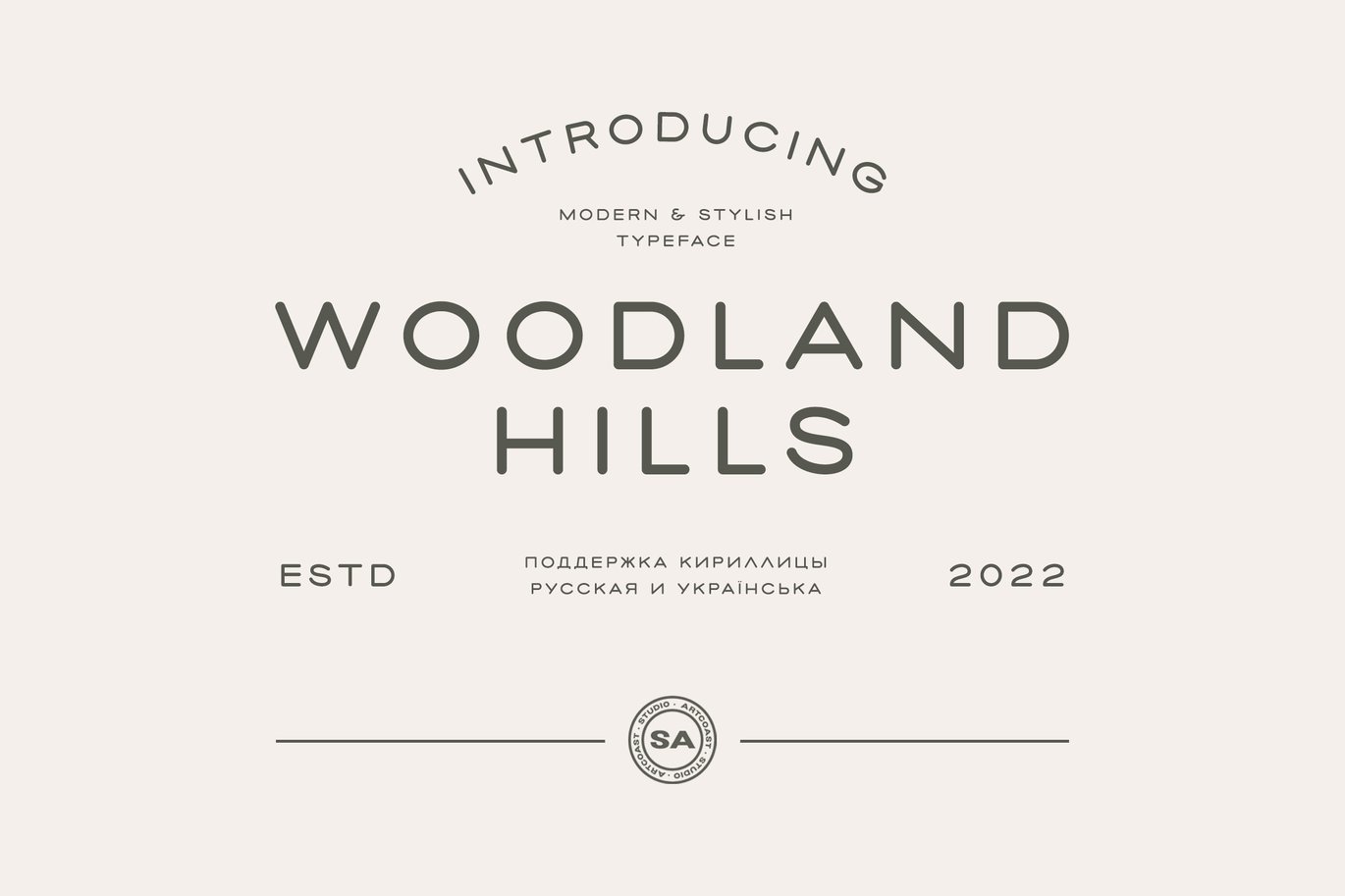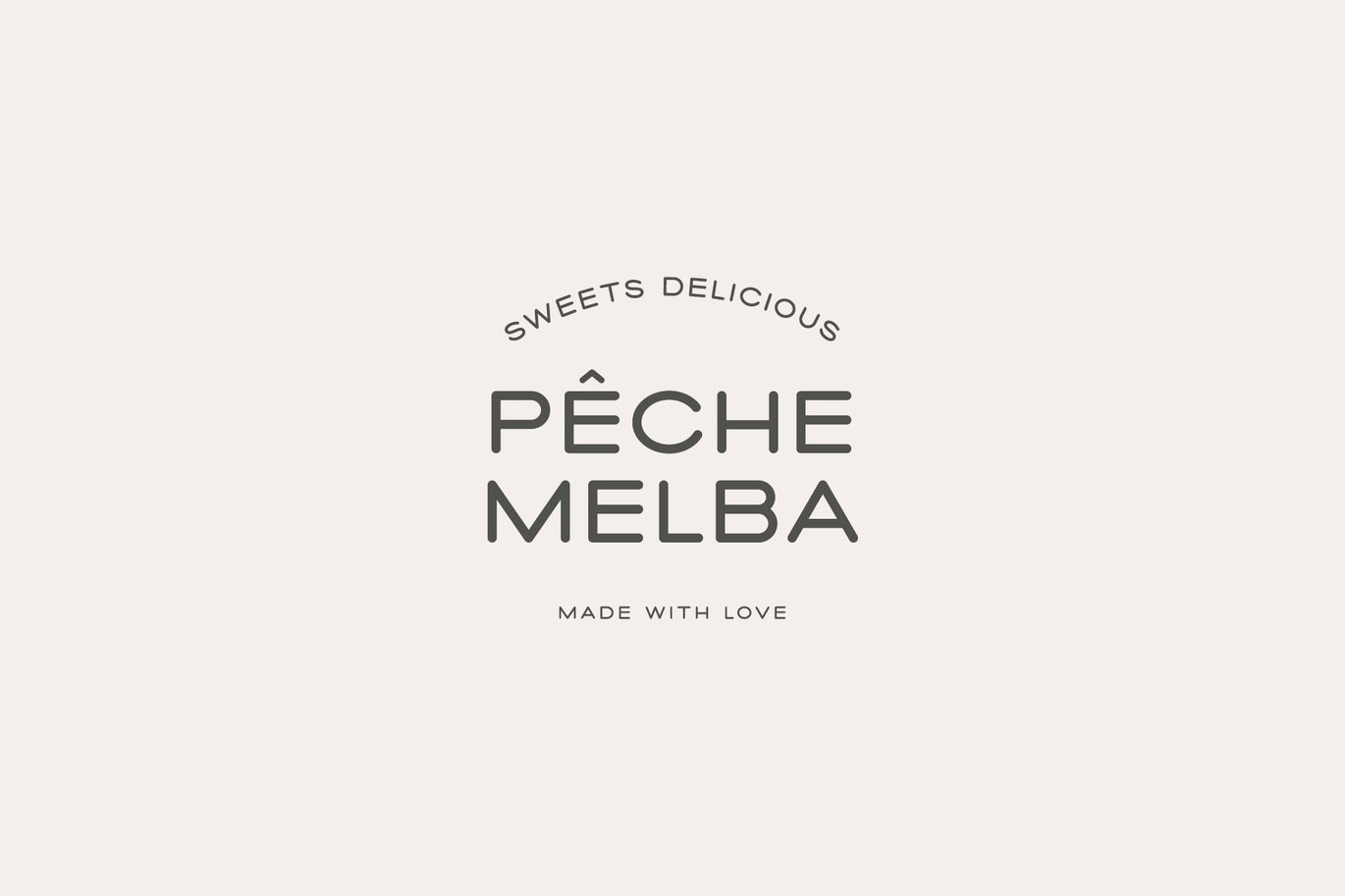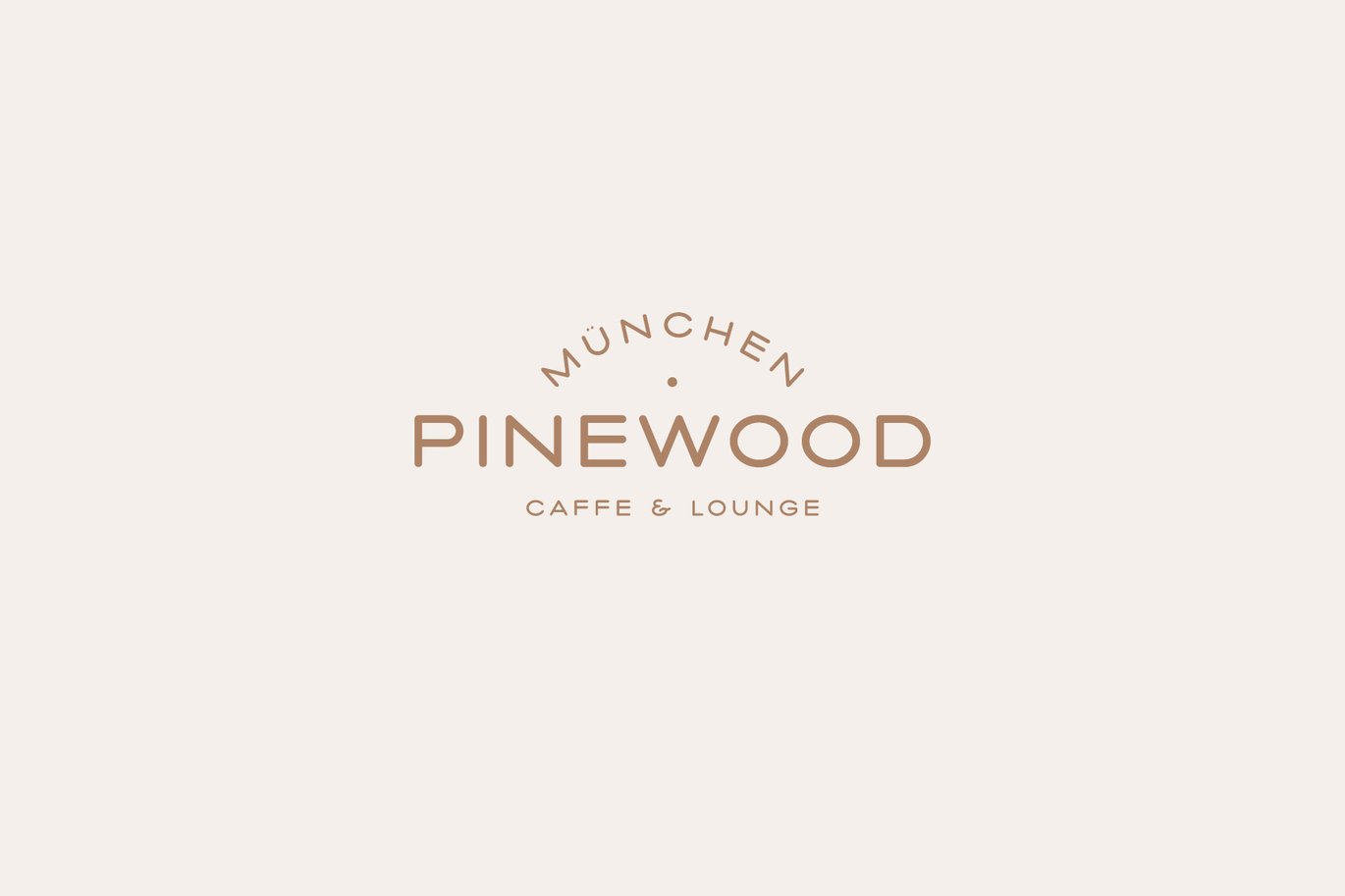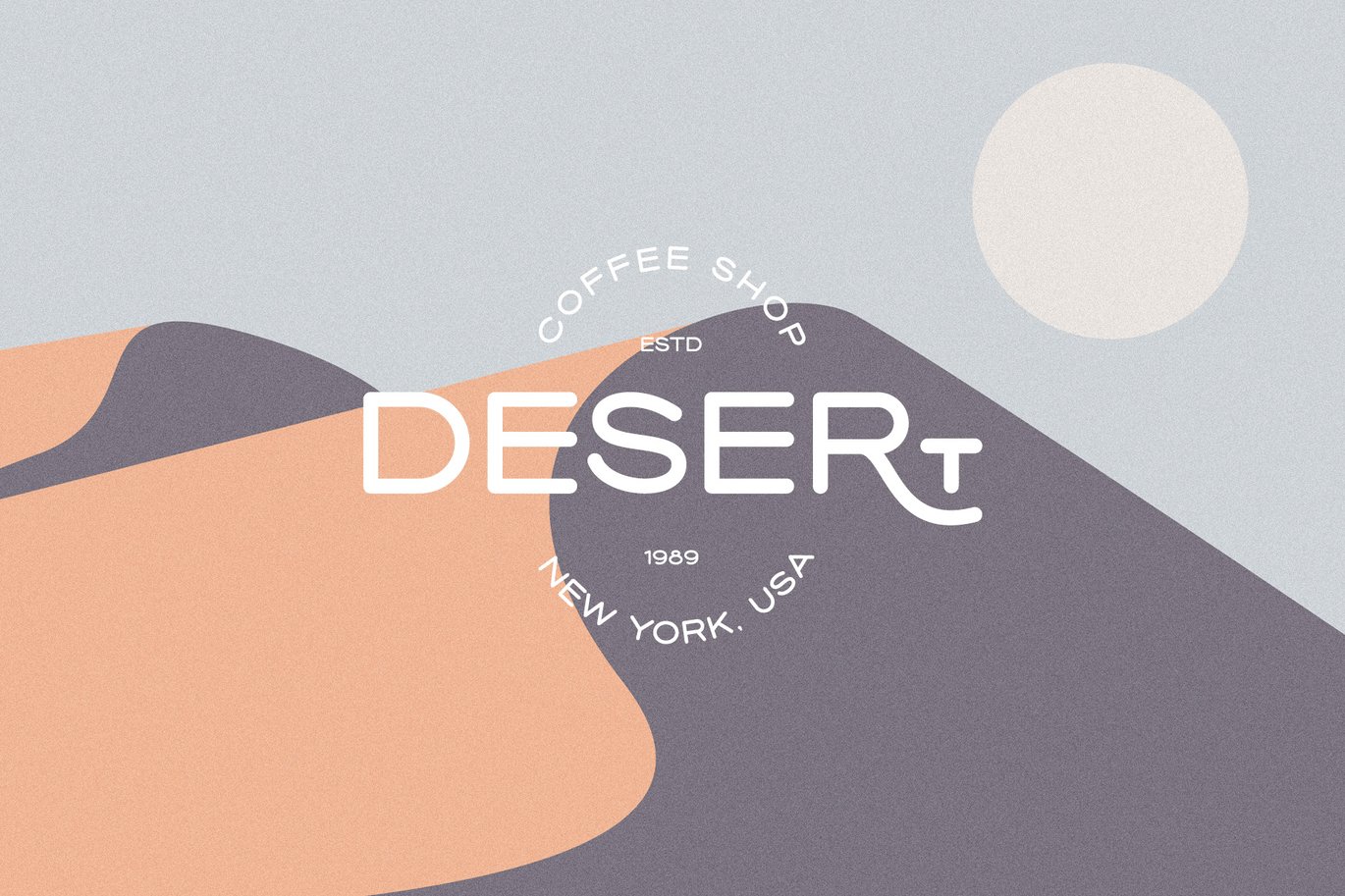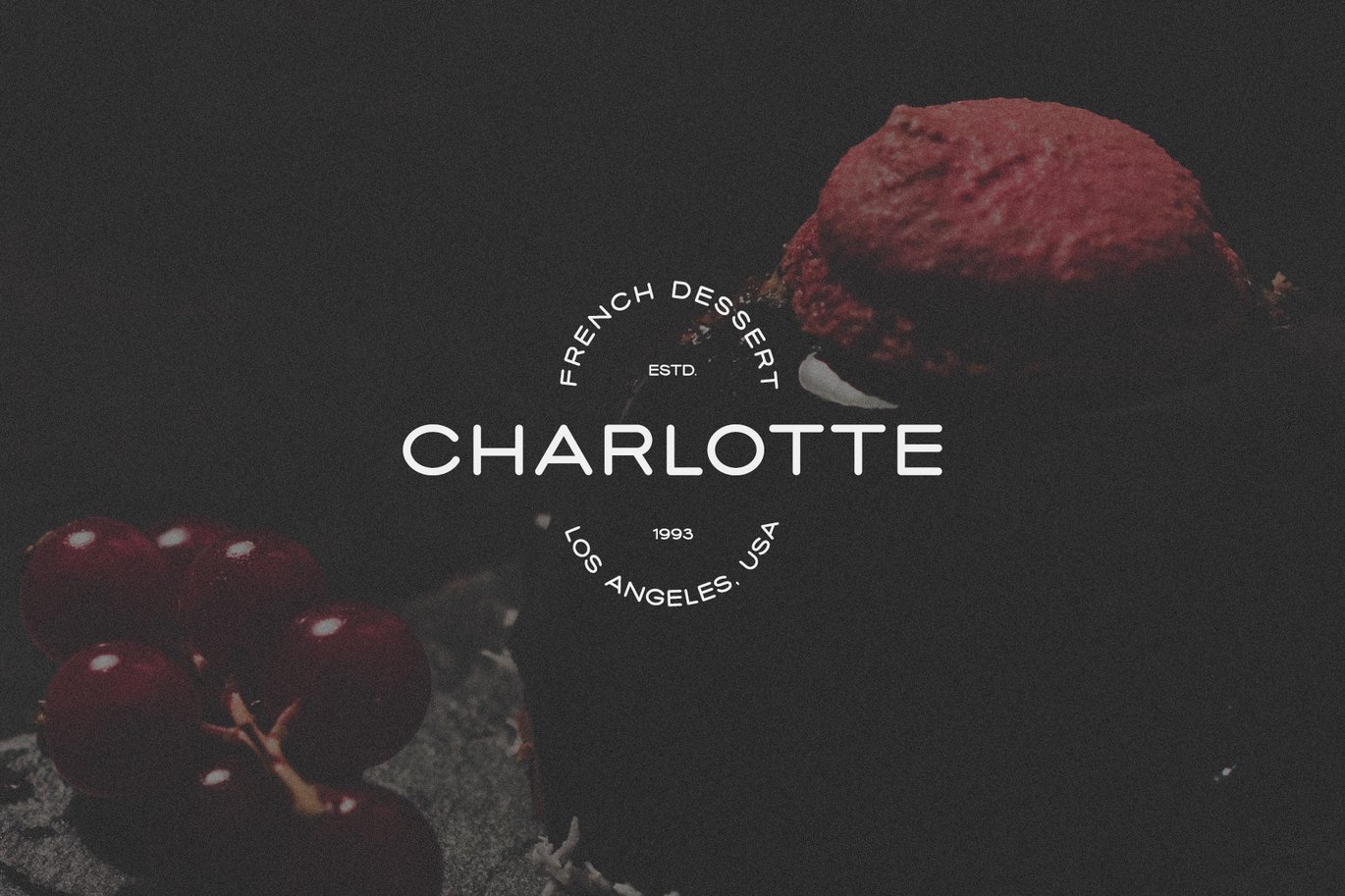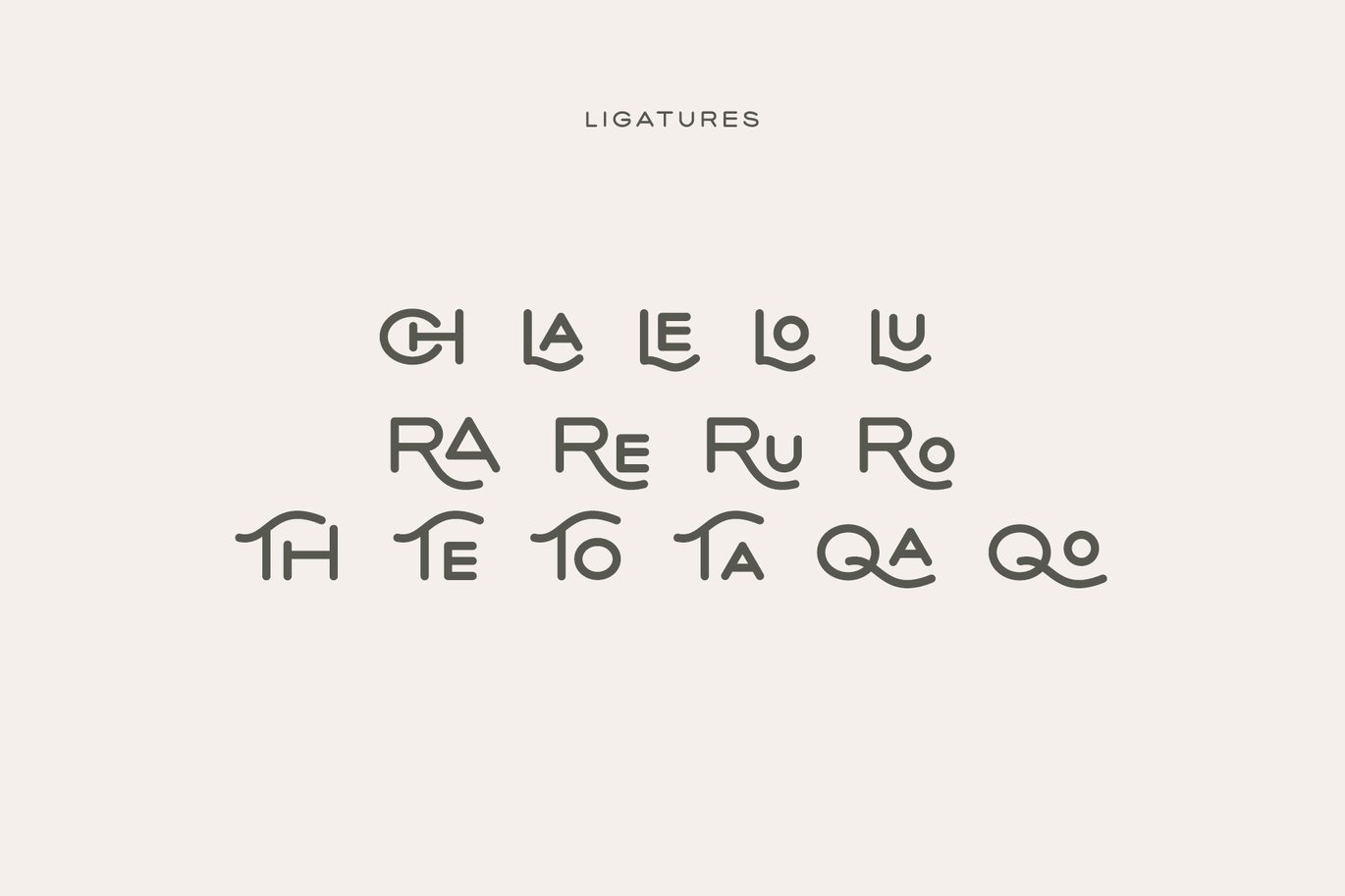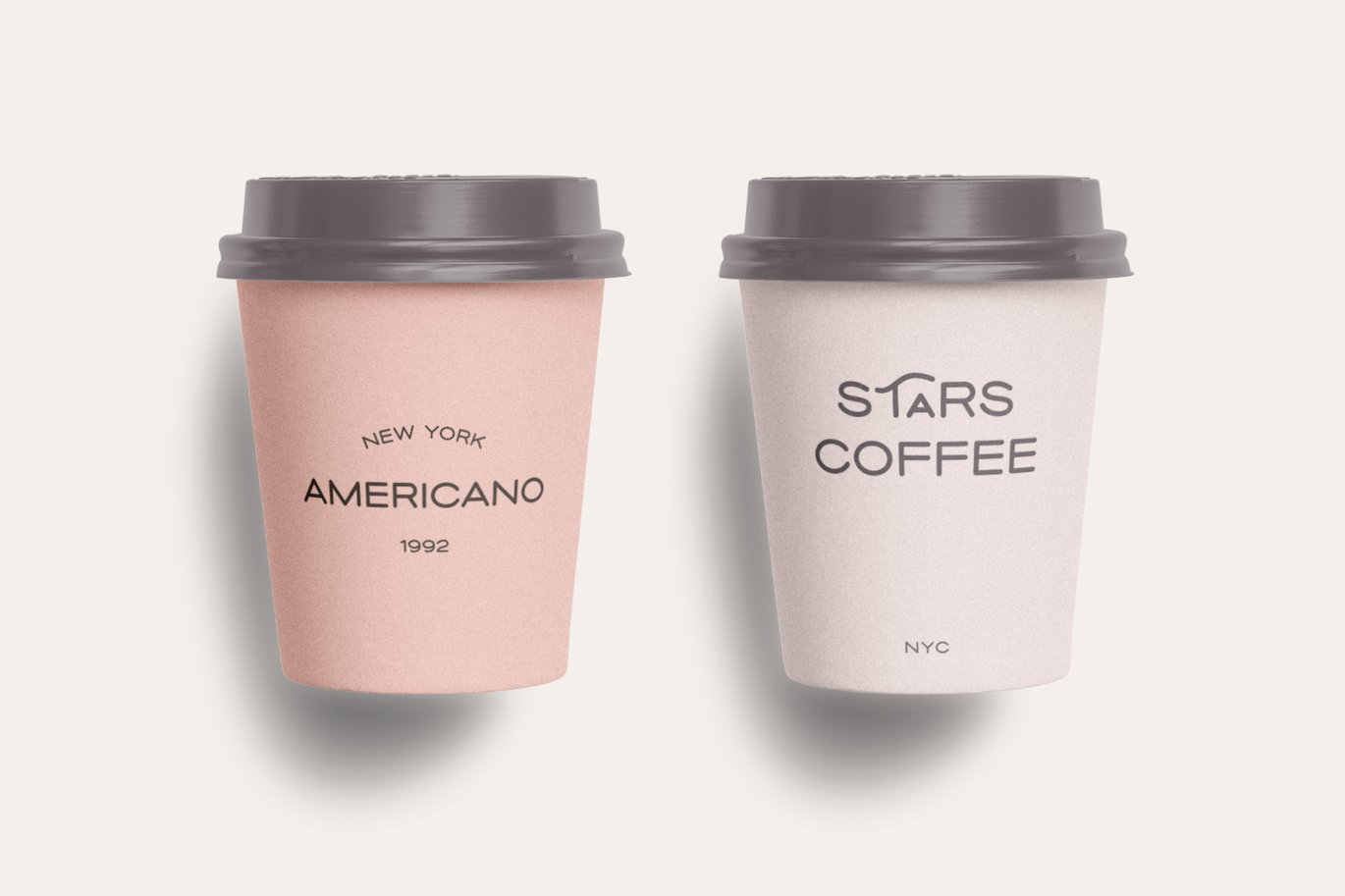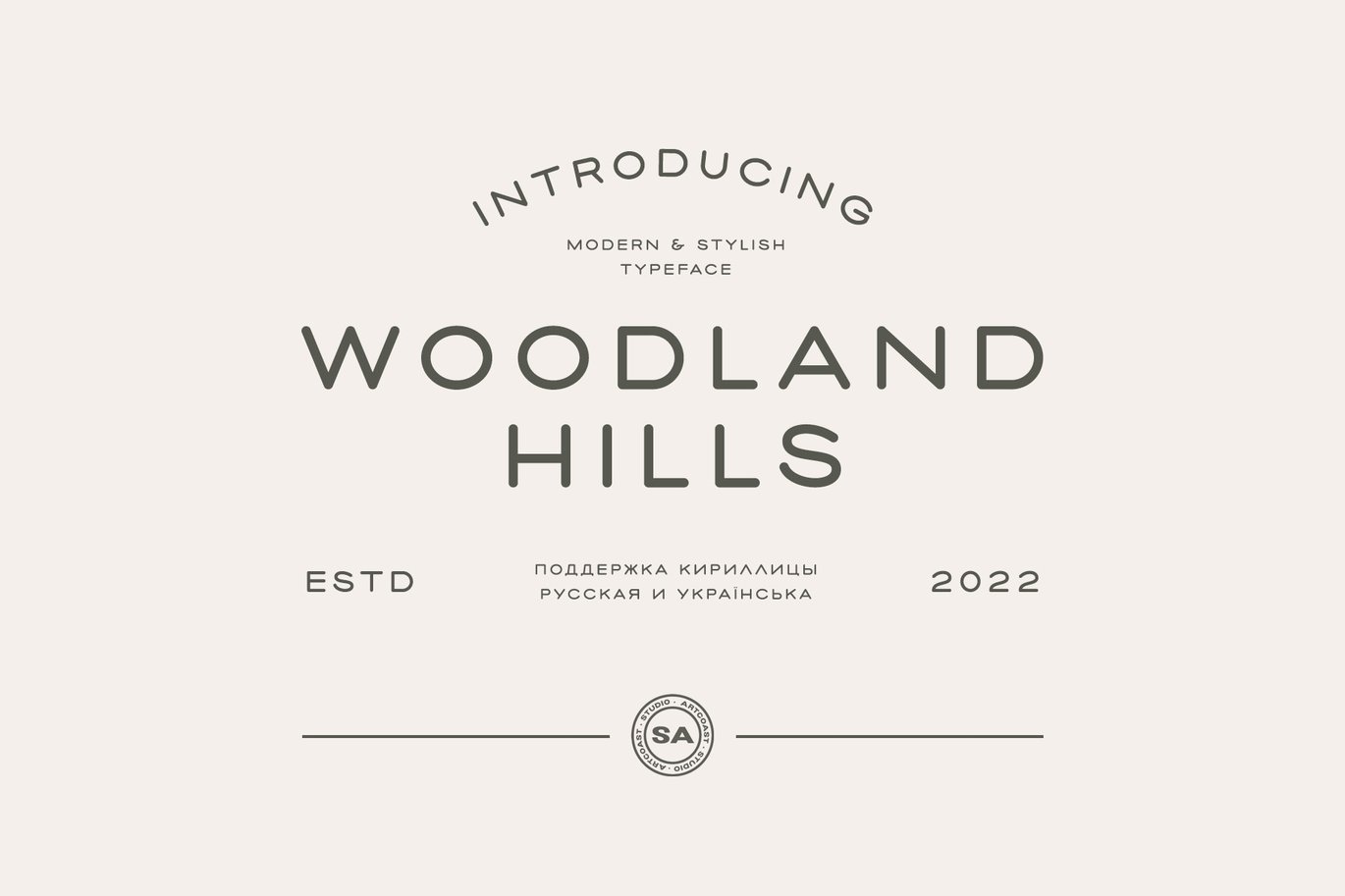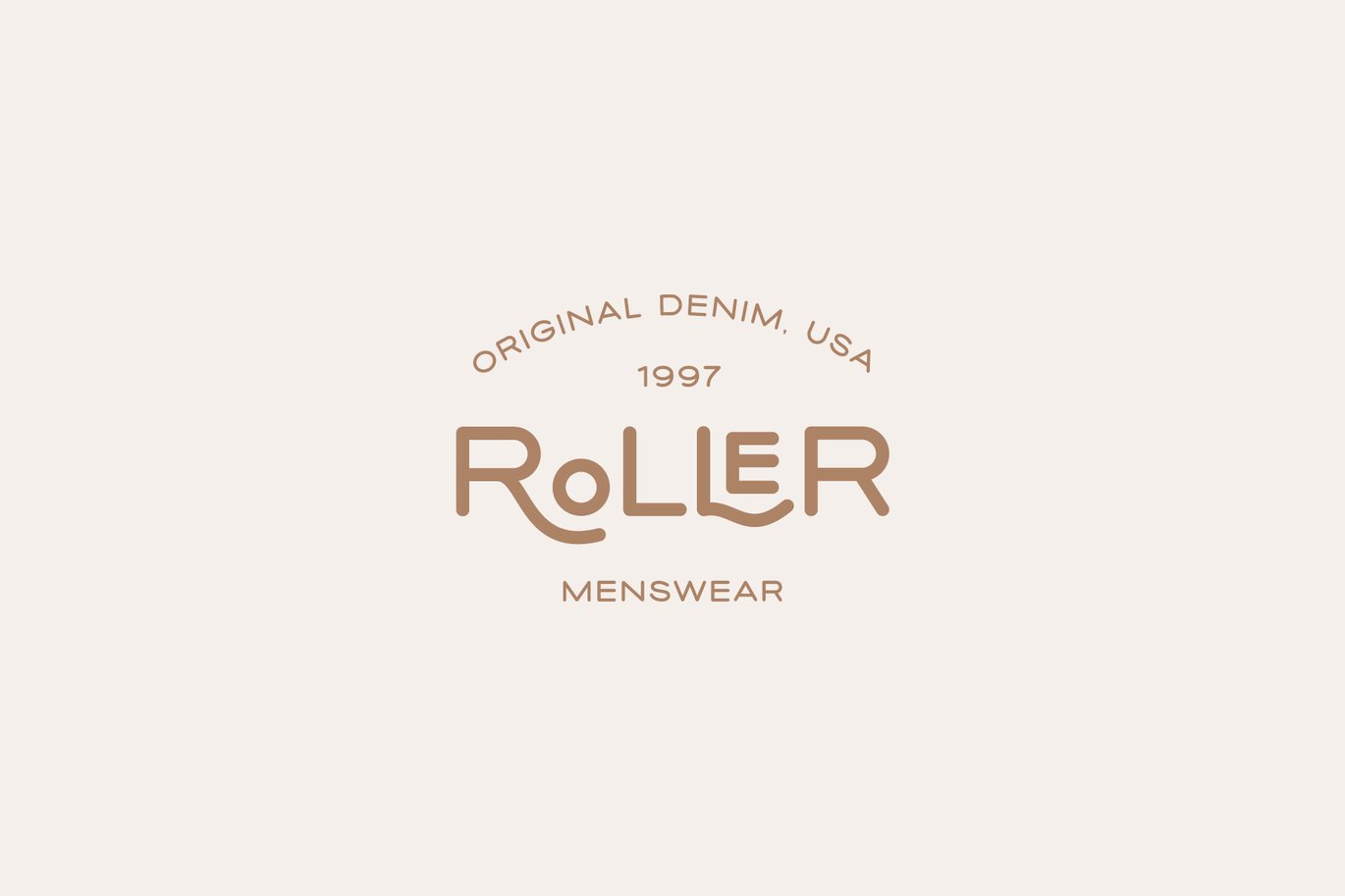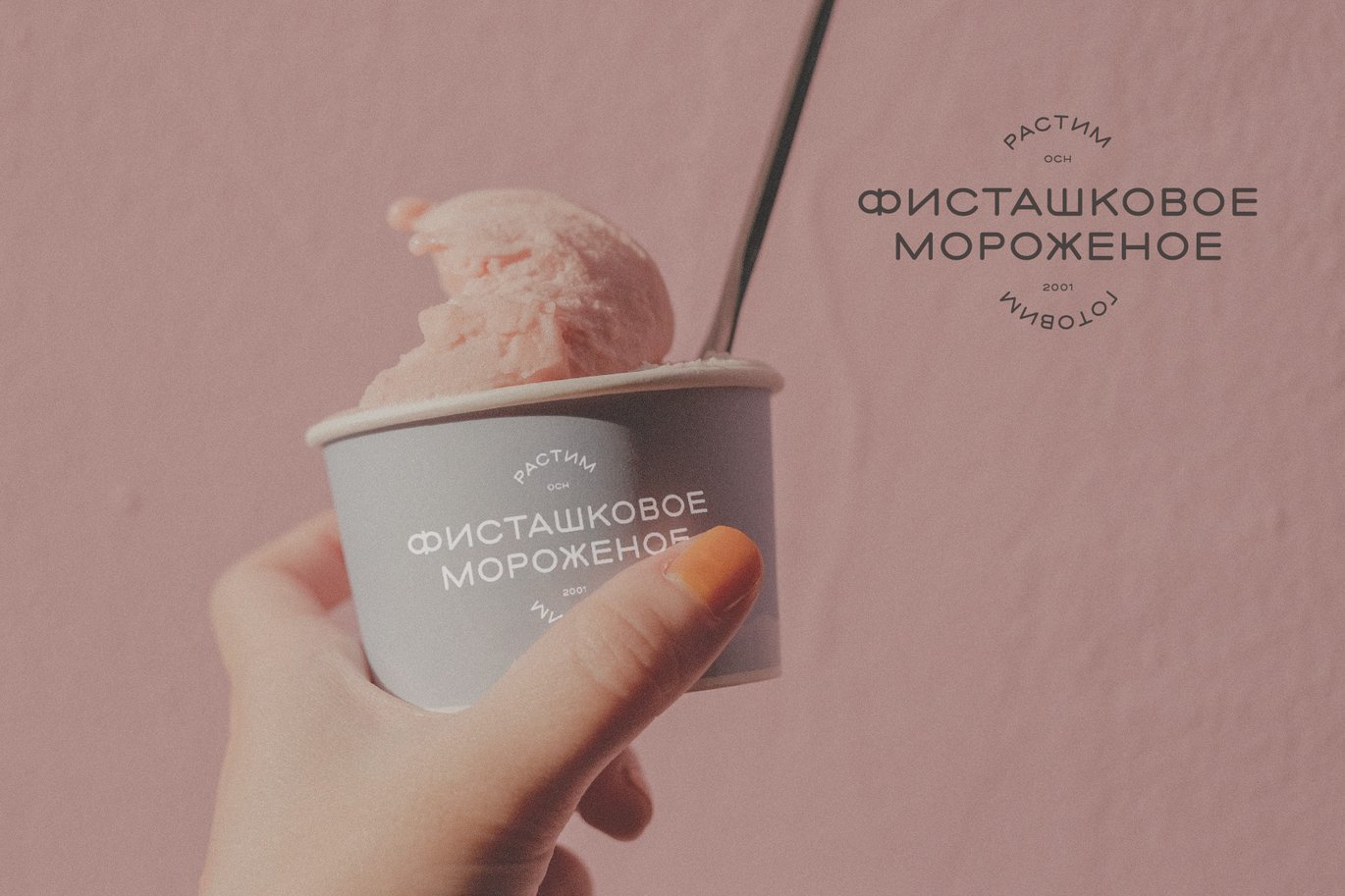
SA Woodland Hills – Modern Display Font
Introducing SA Woodland Hills – a clean, elegant, modern typeface that you can use in packaging or branding, creating beautiful logos, headlines, quotes and any other printed matter. The font supports Russian and Ukrainian Cyrillic, as well as extended Latin. We hope that the font will become your excellent assistant in the design of products.
- Contextual alternates
- Uppercase Characters